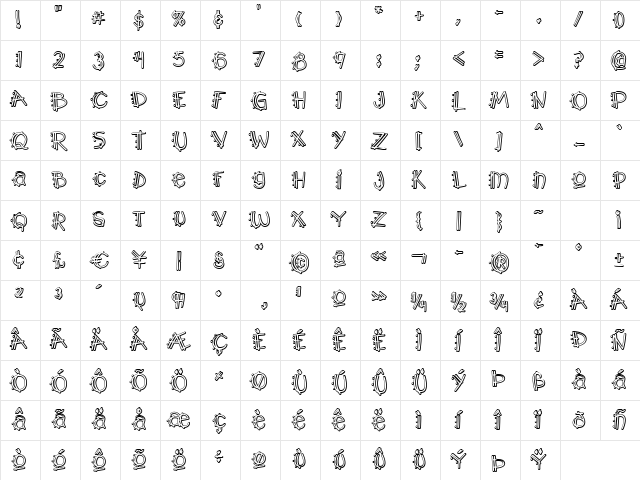
Y2K PopMuzik Outline AOE Regular Font Preview
Y2K PopMuzik Outline AOE Regular
Design Context for Y2K PopMuzik Outline AOE Typeface
Y2K PopMuzik Outline AOE brings ornamental detail and strong personality to headlines and identities, where visual impact matters more than quiet functionality.
Font Pairing: Pair with a clean neutral sans-serif for body copy to let Y2K PopMuzik Outline AOE's character lead without overwhelming the composition.
Pro Tip: Use Y2K PopMuzik Outline AOE exclusively at display sizes — it was designed to be seen, not read at length. Let a neutral companion handle body copy.